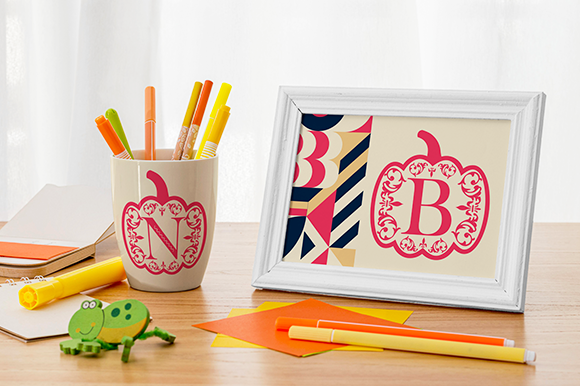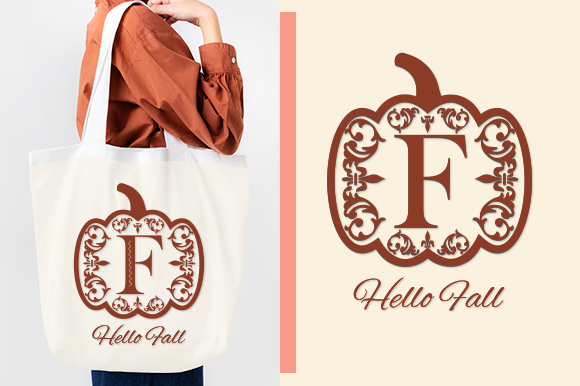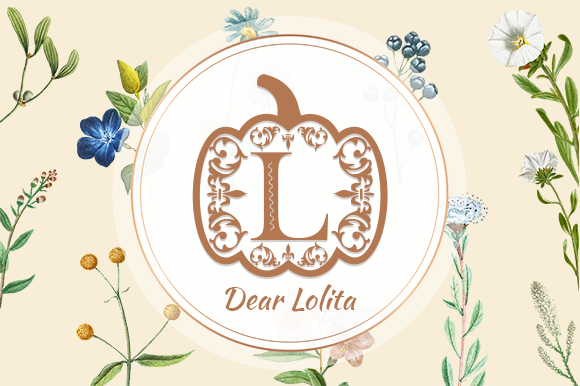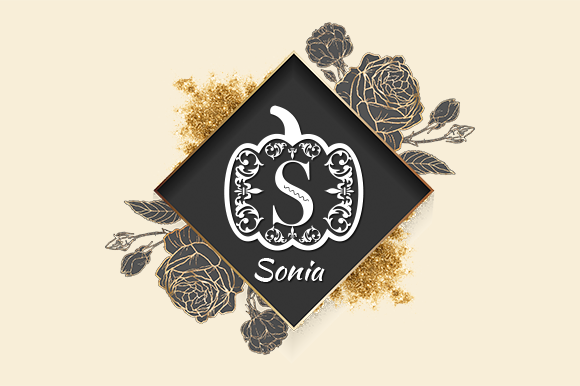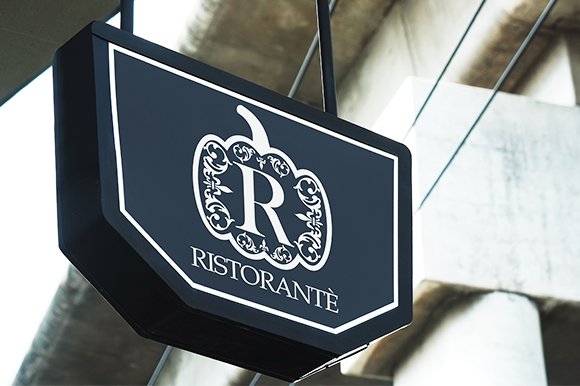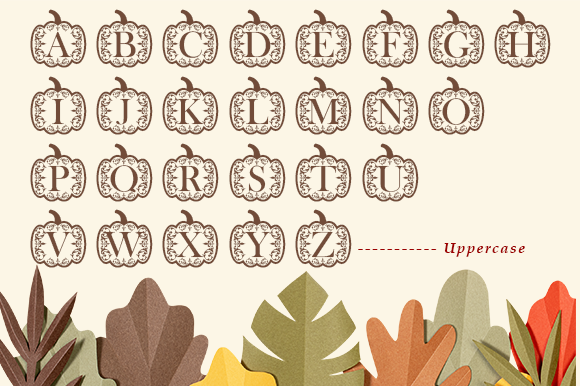
Fall in Love with Fall Pumpkin Monogram Font
As the leaves change colors and the air grows crisper, our minds turn to the warm, cozy feelings of autumn. For designers and crafters, this season offers endless inspiration for creative projects. One of the most iconic symbols of fall is the pumpkin, and what better way to celebrate the season than with a charming Fall Pumpkin Monogram Font?
What is Fall Pumpkin Monogram Font?
Fall Pumpkin Monogram Font is a delightful decorative font that captures the essence of the autumn season. Its authentic feel and charming design make it perfect for creating a wide range of fall-themed projects, from invitations and stationery to social media posts and greeting cards.
Key Features of Fall Pumpkin Monogram Font
- Unique and Charming Design: The Fall Pumpkin Monogram Font features a distinctive, hand-crafted design that is sure to add a touch of autumn magic to any project.
- Authentic Feel: The font’s authentic feel makes it perfect for creating projects that evoke the warmth and coziness of the fall season.
- Highly Versatile: Whether you’re designing invitations, stationery, social media posts, or greeting cards, this font is sure to impress.
- Easy to Use: With its user-friendly design, you can easily incorporate the Fall Pumpkin Monogram Font into your projects, even if you’re not a seasoned designer.
Uses for Fall Pumpkin Monogram Font
The possibilities are endless when it comes to using the Fall Pumpkin Monogram Font. Here are just a few ideas to get you started:
- Autumn Invitations: Create beautiful, eye-catching invitations for fall parties, harvest festivals, and other seasonal events.
- Stationery and Gift Tags: Add a personal touch to your stationery and gift tags with this charming font.
- Social Media Posts: Use the Fall Pumpkin Monogram Font to create stunning social media posts that will make your followers feel like they’re experiencing the magic of fall.
- Greeting Cards: Design adorable greeting cards for friends and family, perfect for sending a seasonal message.
Tips for Using Fall Pumpkin Monogram Font
To get the most out of the Fall Pumpkin Monogram Font, here are a few tips to keep in mind:
- Experiment with Colors: Try pairing the font with a range of autumn-inspired colors, such as orange, yellow, and red.
- Mix and Match: Combine the Fall Pumpkin Monogram Font with other fonts and design elements to create a unique look.
- Keep it Simple: Don’t be afraid to keep things simple and let the font speak for itself.
If you’re looking for a font that captures the essence of the fall season, look no further than the Fall Pumpkin Monogram Font. With its charming design, authentic feel, and versatility, this font is sure to become a favorite among designers and crafters. So why wait? Fall in love with the Fall Pumpkin Monogram Font and start creating your own stunning autumn-inspired projects today!